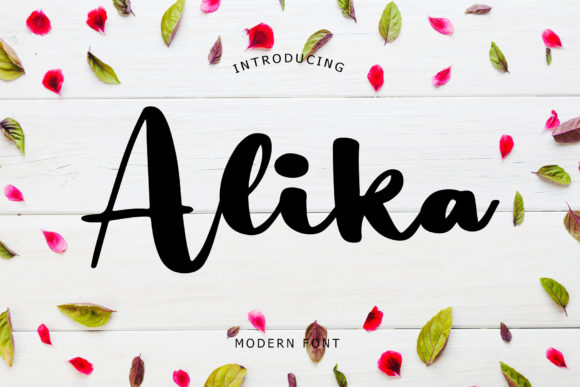
The Alika Font: A Bold and Cute Handwritten Delight for Creatives
I’ll never forget the time I was working on a branding project for a small business, and I just couldn’t find the perfect font. My client wanted something bold, yet playful, and I was determined to deliver. That’s when I stumbled upon the Alika font, a bold and cute handwritten font that instantly caught my attention. In this article, I’ll share my experience with Alika, its features, and how to make the most of it in your designs.
An Honest Review of Alika Font
So, what makes Alika font so special? Let’s dive into the good stuff and some minor quirks.
What I Love About Alika Font ✨
- ✅ Unique and playful style: Alika font has a distinct, hand-drawn feel that’s perfect for creative projects.
- ✅ Highly legible: Despite its bold and playful nature, Alika font is surprisingly easy to read, even in smaller sizes.
- ✅ Versatile: Alika font works well for a wide range of applications, from logos and branding to social media graphics and DIY projects.
While Alika font is amazing, there are a few minor things to keep in mind:
- ⚠️ Limited use in formal contexts: Due to its playful nature, Alika font might not be the best fit for formal or professional projects that require a more traditional look.
- ⚠️ Some letter combinations may require adjustment: As with any font, some letter combinations might not look perfect, so be prepared to make adjustments as needed.
The Story Behind Alika Font
Alika font was designed with the intention of creating a bold, yet cute handwritten font that’s perfect for creative projects. The designer aimed to craft a font that’s both playful and legible, making it suitable for a wide range of applications.
Q: Is Alika font suitable for body text?
While Alika font is legible, it’s primarily designed for headlines and titles. For body text, you may want to consider a more traditional font for better readability.